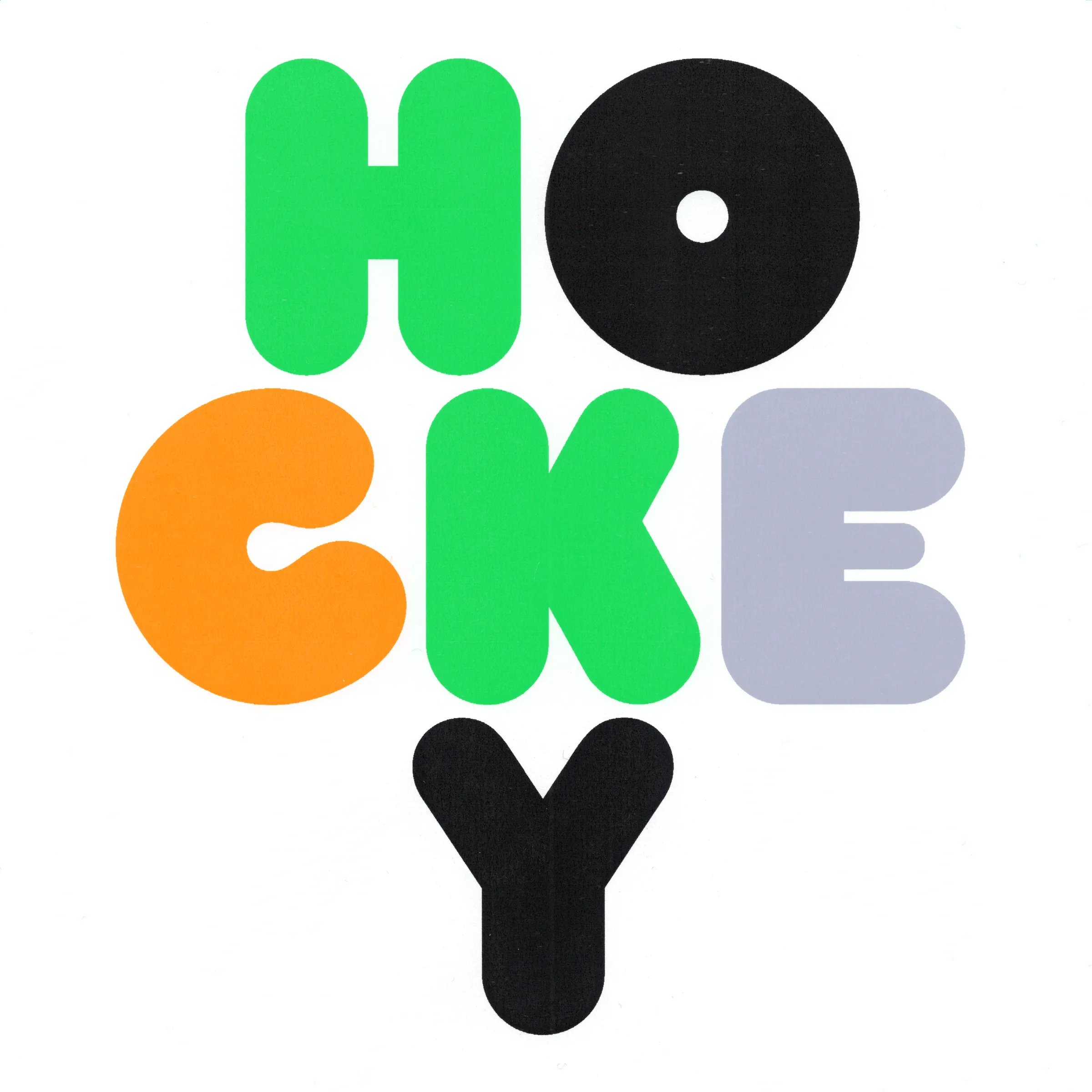
3-D and Shaded Alphabets, 100 complete fonts, selected and arranged by Dan X. Solo. From the Solotype Typographers Catalog. 1982
Letraset sheet, Letragraphica, Frankfurter typeface.
Harry is based on a typeface with a strange name « Too Much » designed by William Bill Seifert in the 70’s for the VGC (Visual Graphics Corporation) foundry. This typeface appeared in the same years as the better-known Frankfurter, designed in its first versions by Bob Newman for Letraset. Too Much appeared at the time as an alternative to Frankfurter, but in a more contrasted version, less mono-linear in capitals only and with some letters showing a more unexpected drawing than its neighbour Frankfurter. Harry is therefore an interpretation that remains very close to the original design, but in which certain aspects and settings of weights, curves and proportions have been modified.